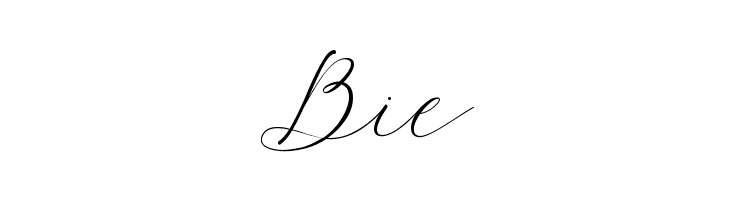
A flowing, cursive script font with a handwritten style.
An elegant font with flowing swashes and a calligraphic style.
An elegant, flowing script font with ornate uppercase and smooth lowercase letters.
An elegant script font with flowing, interconnected letters and high contrast strokes.